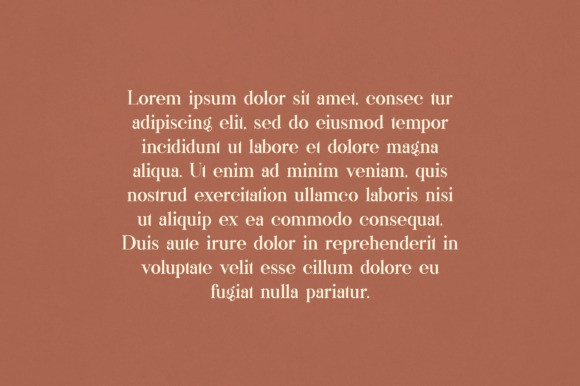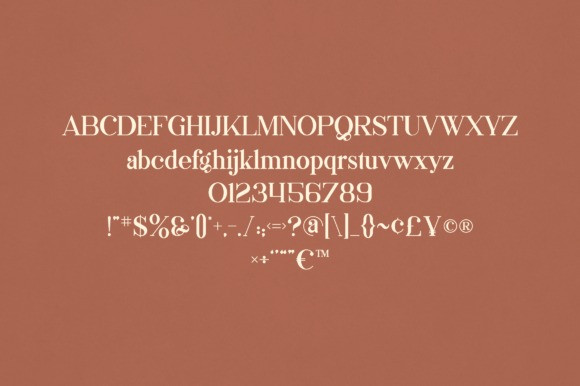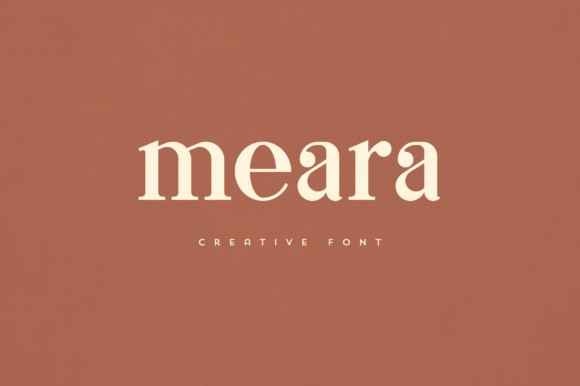
Meara Font
Meara Font is an elegant and versatile serif font that will make your typography truly unique! It will enchant every logo, branding, headline, or plain text!